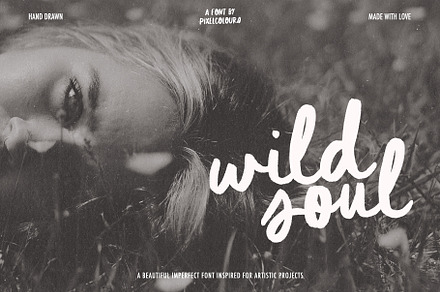
Script Brush Font Duo Wild Soul
Two faces made to be used as a pair: a fast, dry-brush script with visible bristle drag, and a condensed sans that stays out of its way. The script carries the energy; the sans handles dates, details and anything that needs to stay readable.
The brush strokes keep genuine texture along their edges rather than the smoothed vector outlines that give most script fonts away. Connecting alternates let you build natural-looking joins instead of the repeated letterforms that expose a typeface as a font.
- Connecting alternates, swashes and stylistic sets